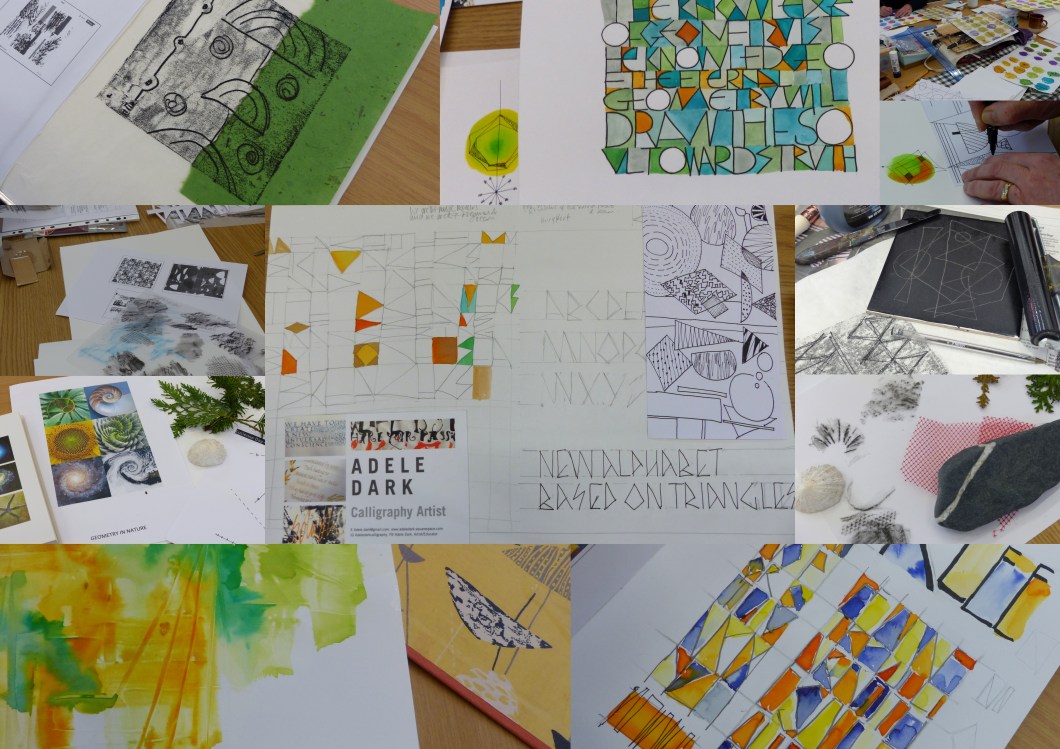
Adele Dark had us experimenting with different techniques to make interesting illustrations or backgrounds for our lettering, and then we moved on to creating our own letters. Inspired by Lucienne Day’s geometry, Bugart, Killian and Klee, we were to bear in mind the quality of their lines, the texture, a strong but simple colour palette, geometric lines, blocks of colour, a few stripes. We drew a rough and not symmetrical grid, to see where serendipity took us as we squeezed, pushed and pulled letters this way and that. This is something I’m looking forward to exploring further.